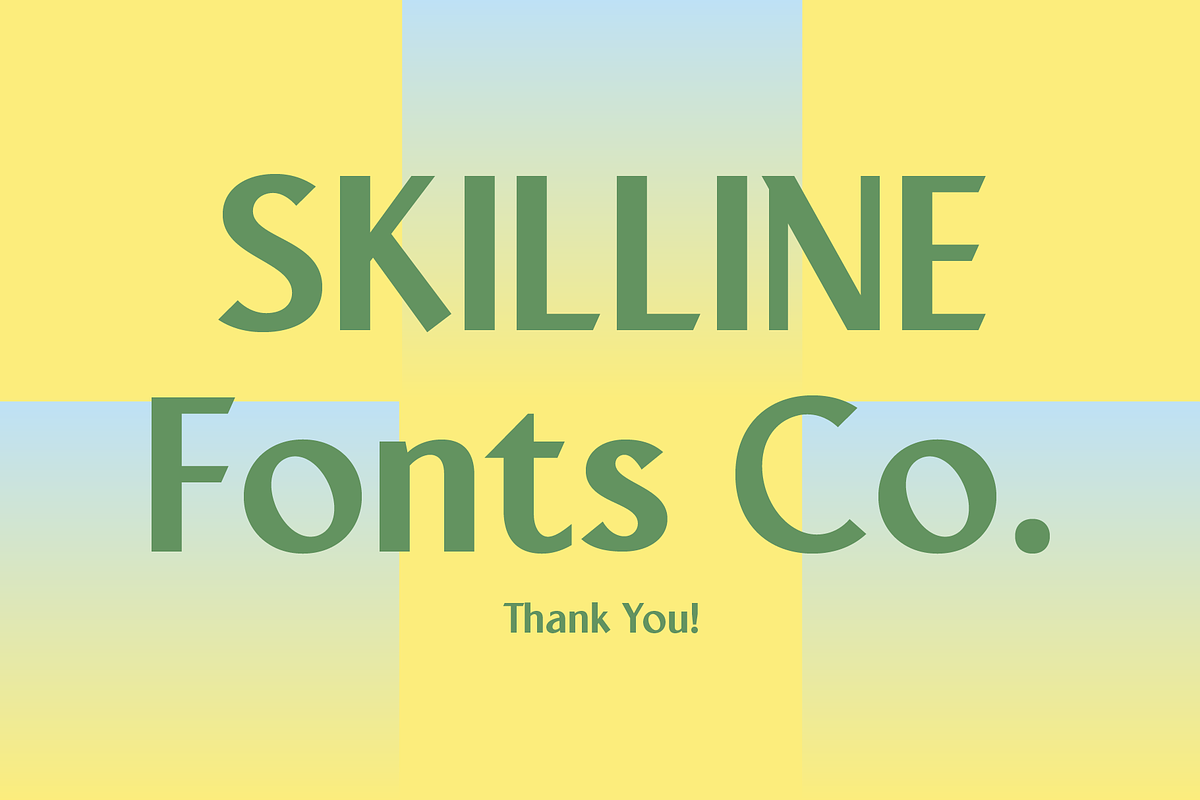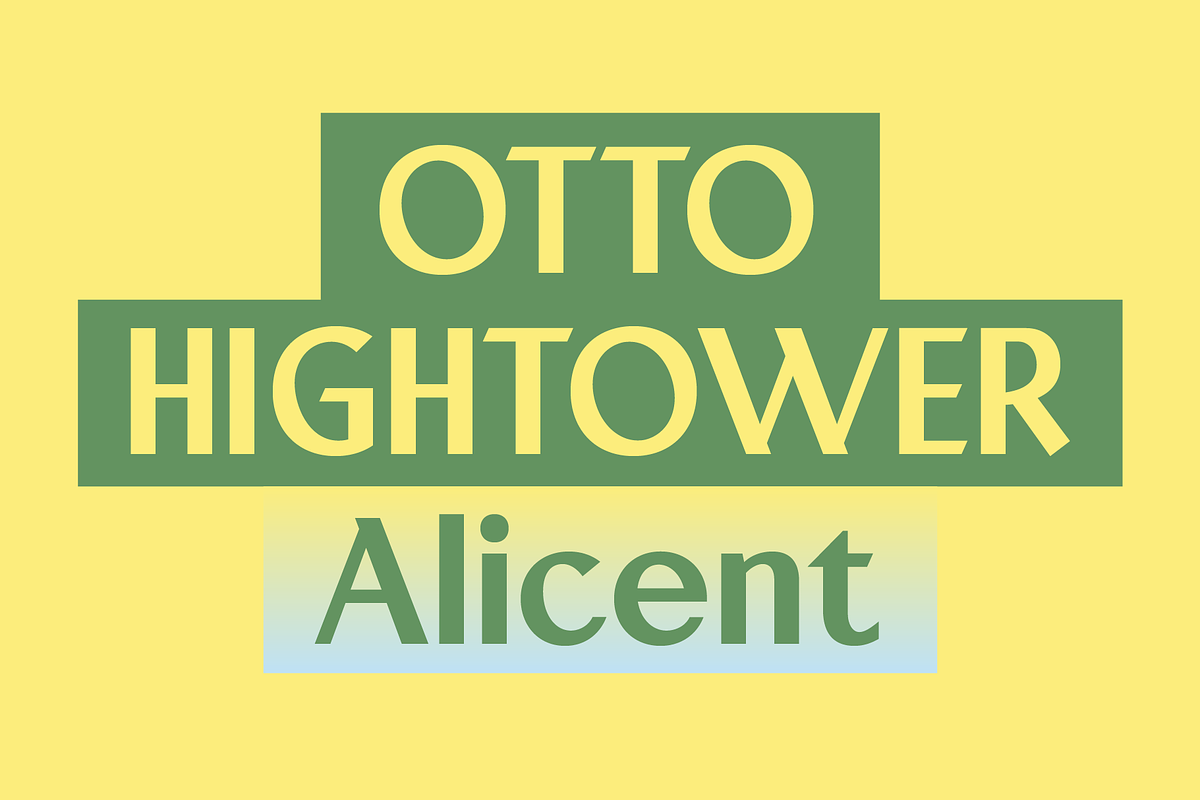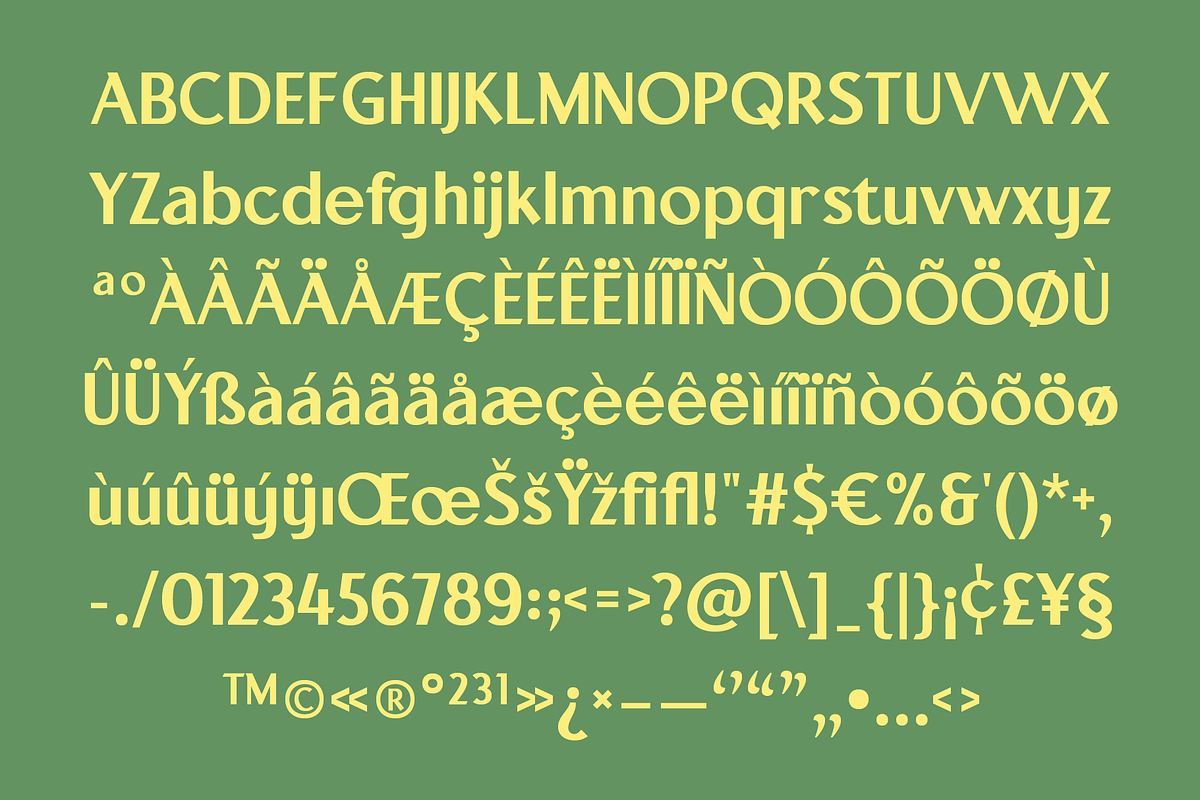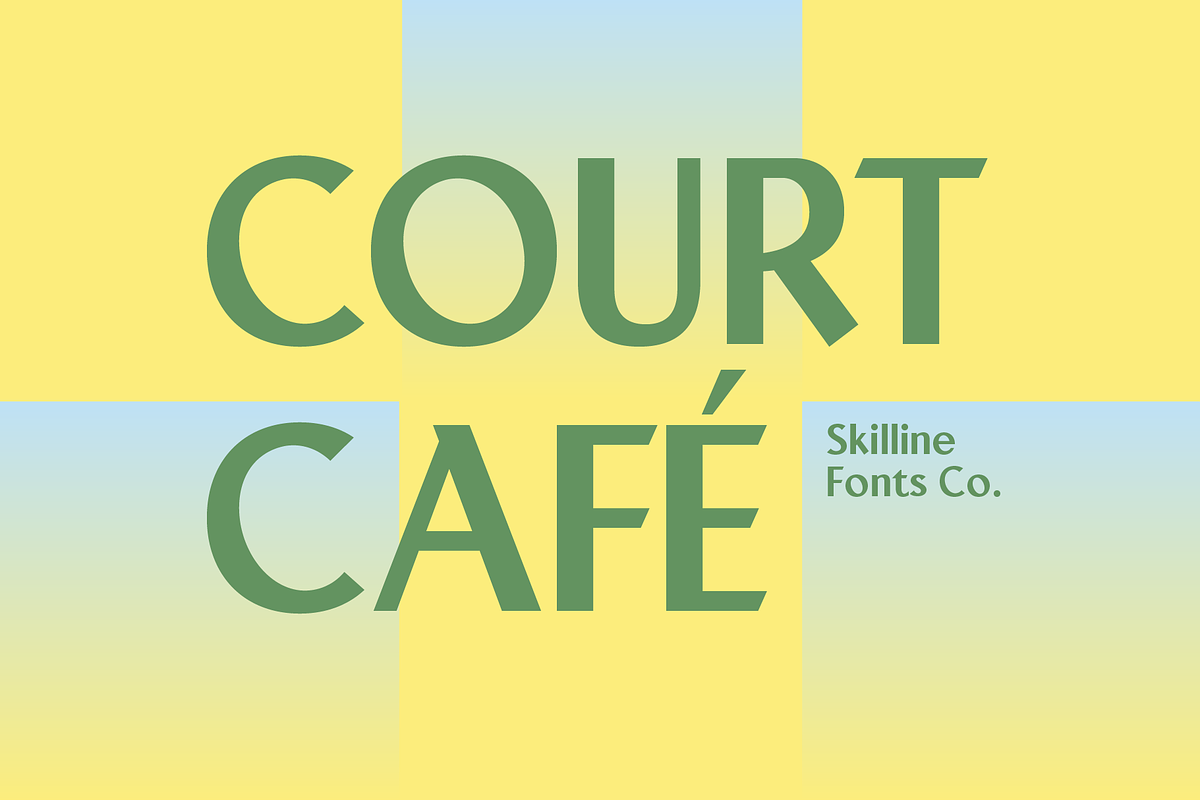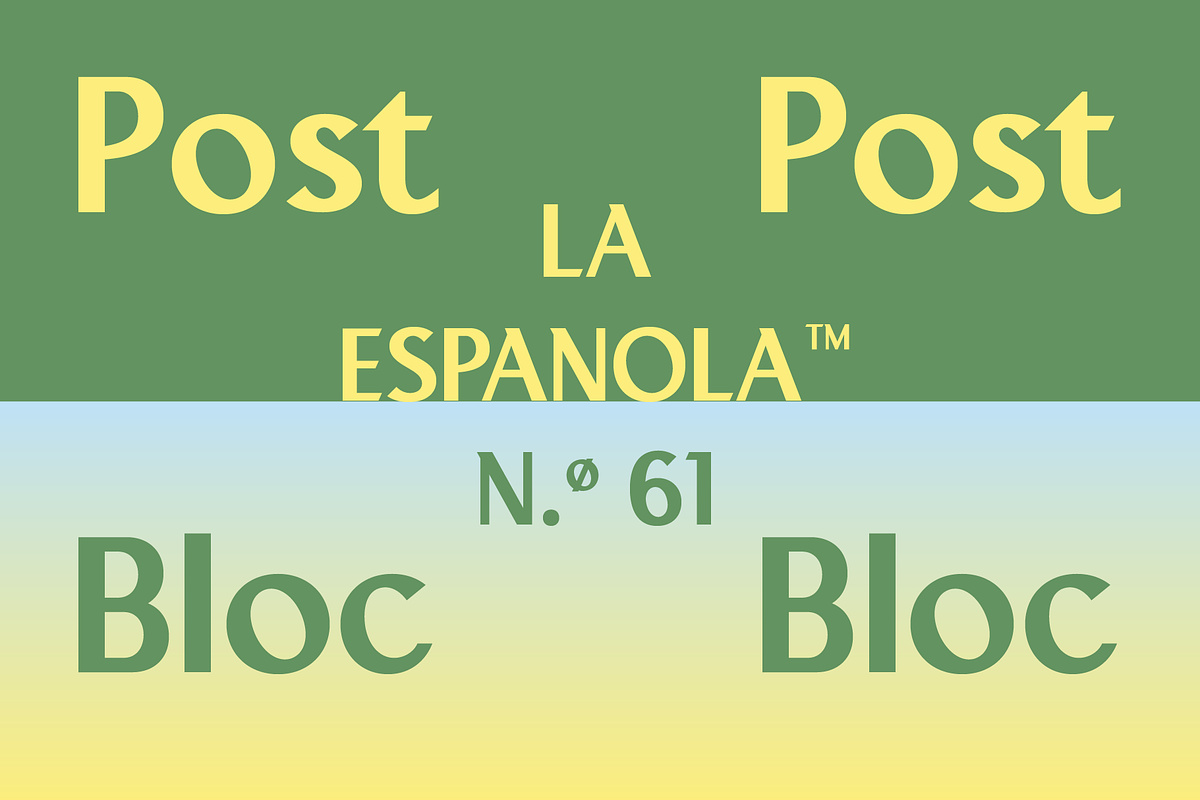
SFC Court Café
Court Café is a clean geometric sans serif inspired by modern café signage, contemporary architecture, and minimalist editorial typography. Balanced proportions, open letterforms, and subtle humanist details create a refined appearance with excellent readability and a calm visual rhythm.
Carefully crafted with consistent spacing and smooth construction, Court Café blends geometric precision with a soft, approachable character. The typeface includes extended Latin characters, multilingual support, complete numerals, punctuation, and a versatile glyph set for a polished typographic experience.
* Geometric Sans Serif
* Smooth Clean Edges
* Modern Minimal Character
* Numerals & Punctuation
* Multi Language